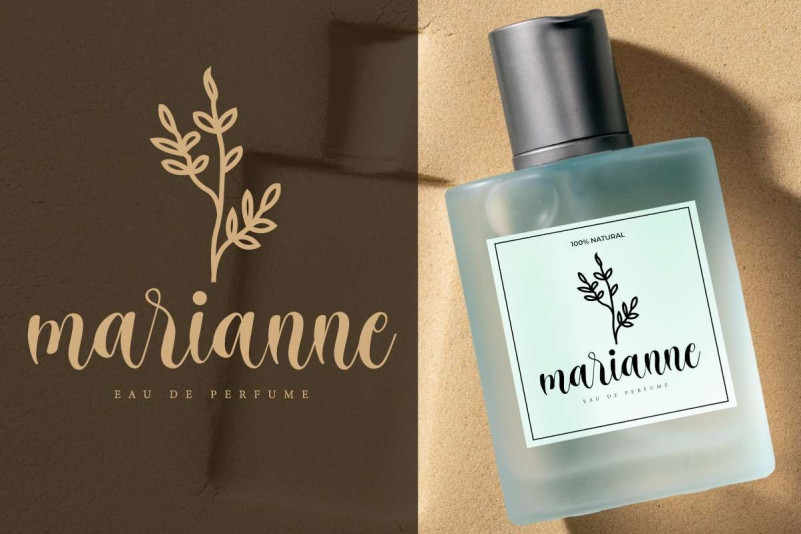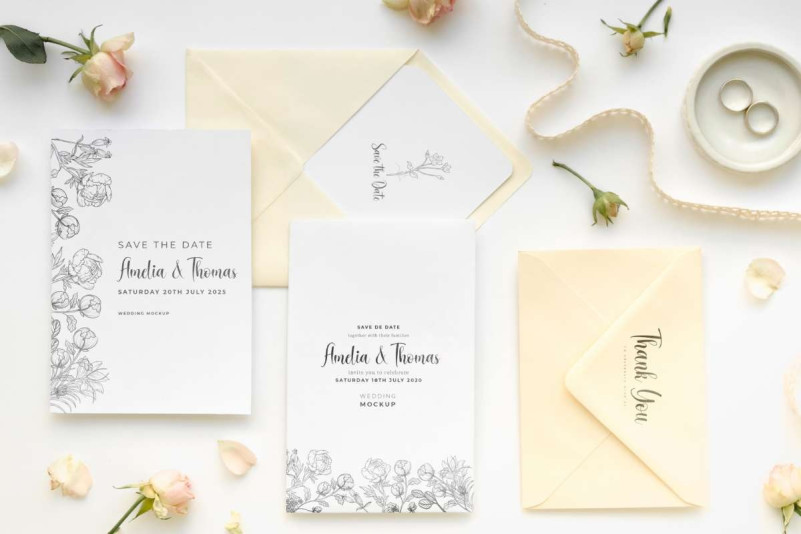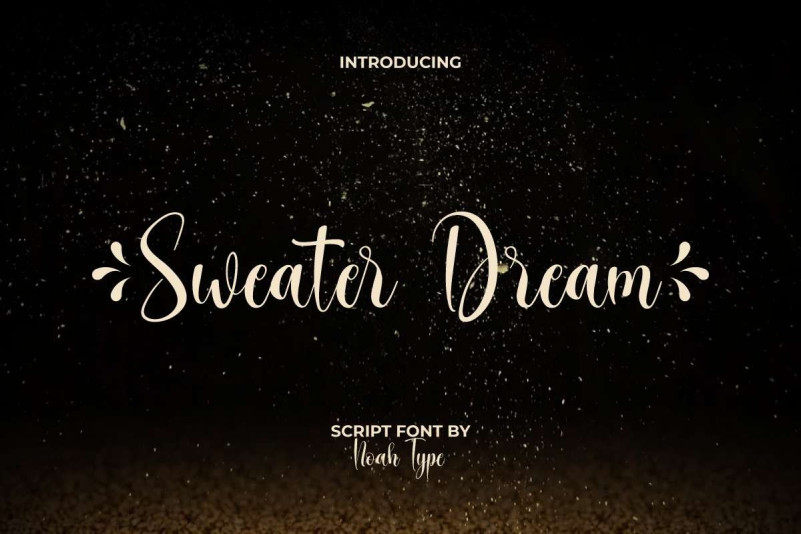
Sweater Dream Font
Sweater Dream Script Font is an elegant script font with calligraphic style with special ornaments. This font is made from beautiful little brush lines that convey luxury that will delight your eyes to produce glamour designs, such as business card, custom design, invitation, label, magazine catalog, menu, poster, product packaging, quotes, stationery, website, and more!
Sweater Dream Font includes full set of Uppercase and Lowercase Basic Characters, Numerals, and Punctuation. It also contain Ligature and Swoosh characters that will add perfection and making it suitable for many industries, such as café, cosmetic, fashion, florist, furniture, interior design, jewelry and accessories, perfume brand, skincare, spa and salon, wedding or event organizer, etc.